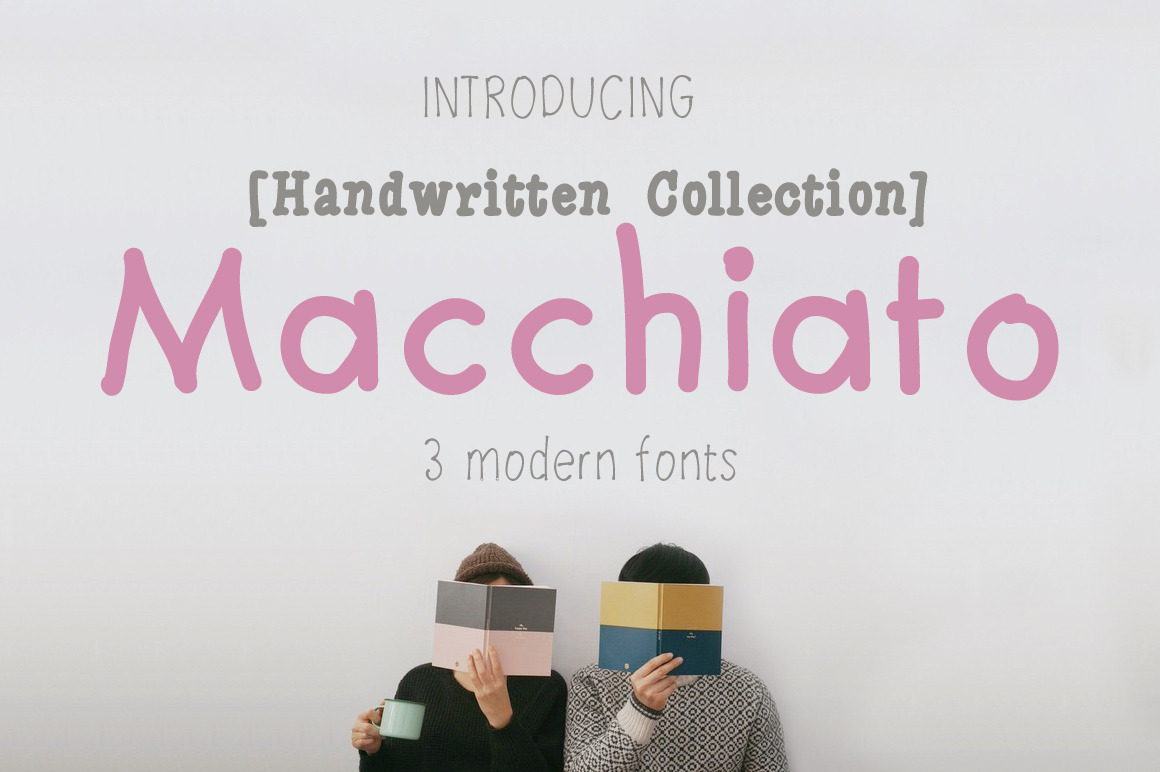
Macchiato [3 Fonts]
It is 3 completely different and perfectly combined fonts. Each font looks great as a standalone or in conjunction with another, or all together. This font is ideal for branding and decorate your any project.
This font are perfect for festival posters or your blog. Also with their help, you can create a logo or wedding invitation. Or just use for your small business, book covers, stationery, marketing, magazines and more.
Macchiato [3 Fonts]:
- Macchiato
- Montyray
- Countryside